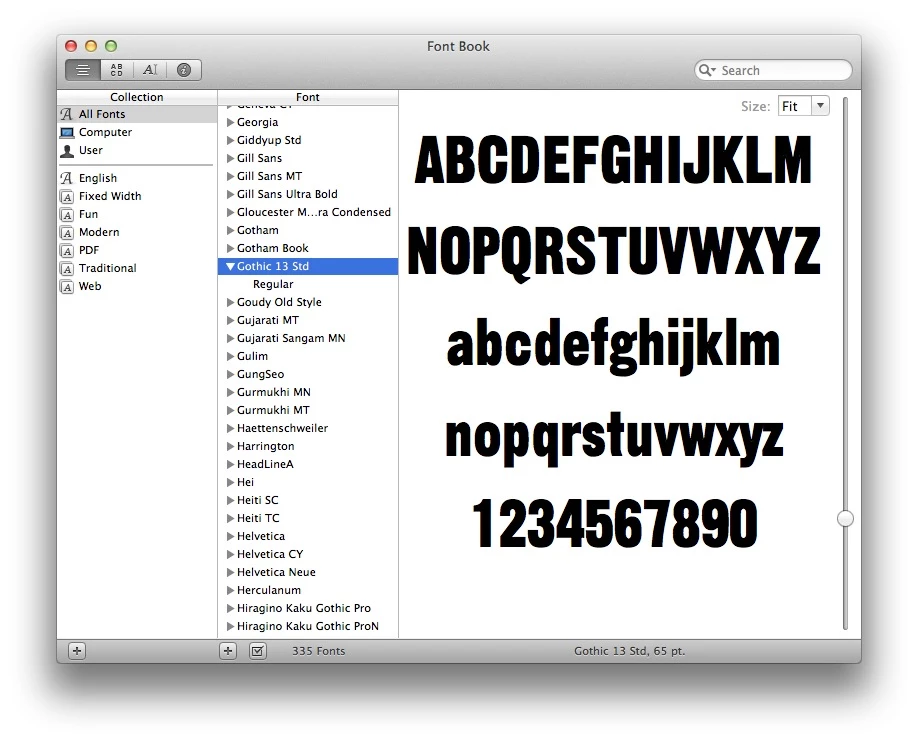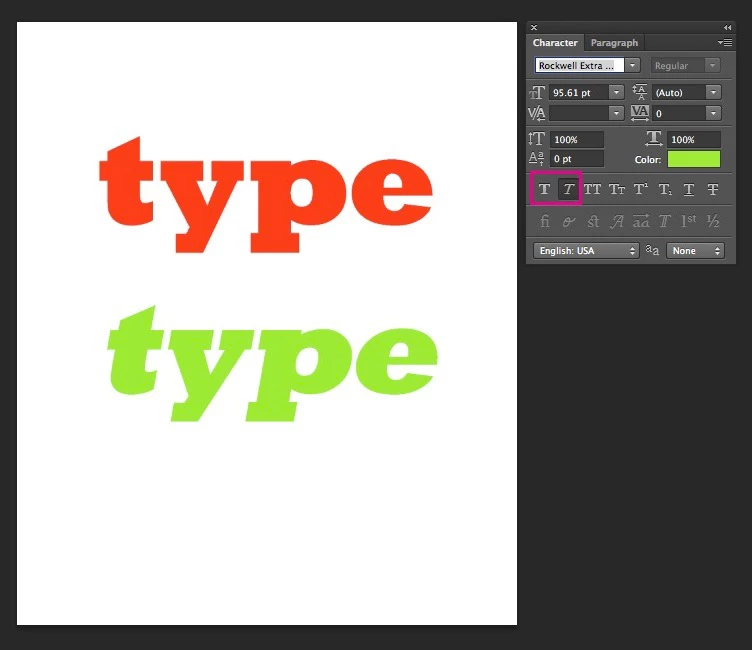
I can't change my font style from "regular"
I am captioning a picture and my font style is frozen on regular. How can I unfreeze font style?
Everything Mylenium said is true. If you are on a Mac, you can see what fonts you have installed by opening the Font Book application. Though the available fonts will be displayed in the Photoshop type menu, you can confirm this in Font Book, too. Once it is open, locate the font you were trying to use in Photoshop and click the twirly to see the entire "font family." You can see below that my font Gothic 13 Std only comes in regular.
To use the faux bold and faux italic buttons on the character panel, follow the directions below.
1: Open the character panel by going to Window > Character.
2: Select your type by double clicking on the "T" icon in the layers panel.
3: Click on one of the icons marked below for faux bold and/or italic.
Like Mylenium said these options might not have results that look as good as a typeface that was designed specifically as an italic/oblique or heavier weight. In fact, many designers would avoid using the faux options entirely... but this is up to your discretion. Another solution, especially if you're captioning a large number of images, would be to change to a font that includes different weights and an italic.
Everything Mylenium said is true. If you are on a Mac, you can see what fonts you have installed by opening the Font Book application. Though the available fonts will be displayed in the Photoshop type menu, you can confirm this in Font Book, too. Once it is open, locate the font you were trying to use in Photoshop and click the twirly to see the entire "font family." You can see below that my font Gothic 13 Std only comes in regular.
To use the faux bold and faux italic buttons on the character panel, follow the directions below.
1: Open the character panel by going to Window > Character.
2: Select your type by double clicking on the "T" icon in the layers panel.
3: Click on one of the icons marked below for faux bold and/or italic.
Like Mylenium said these options might not have results that look as good as a typeface that was designed specifically as an italic/oblique or heavier weight. In fact, many designers would avoid using the faux options entirely... but this is up to your discretion. Another solution, especially if you're captioning a large number of images, would be to change to a font that includes different weights and an italic.
What font are you using? What version of Photoshop? What system? Availability of font styles depends on actually having them installed on the system. If you never installed italic, bold and so on font variants or the font only has a regular style to begin with, there will never be alternate styles available. The best you can do then is to use the faux bold/ faux italic buttons on the character panel, but it may not look as great as a genuine, properly designed italic or bold font...